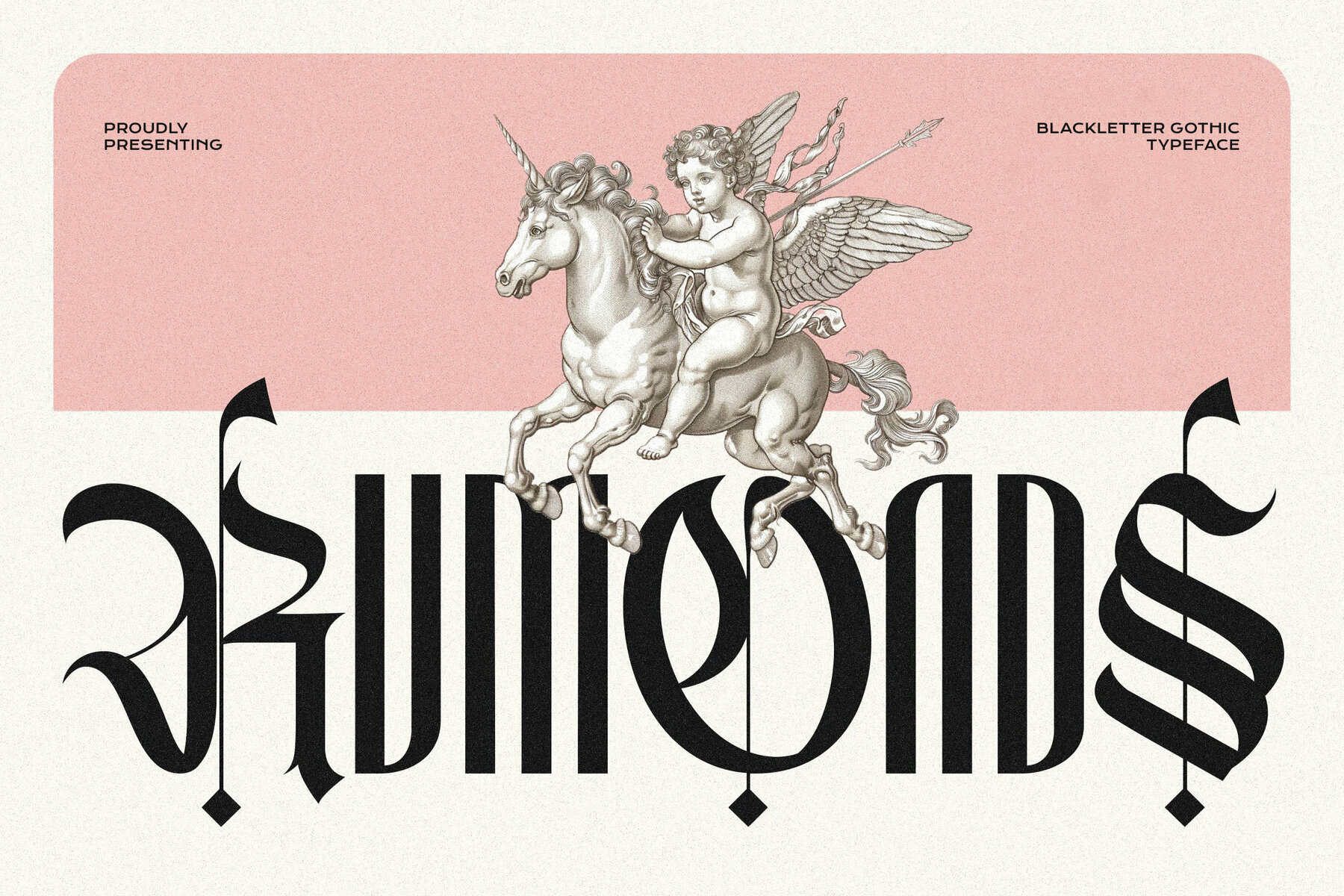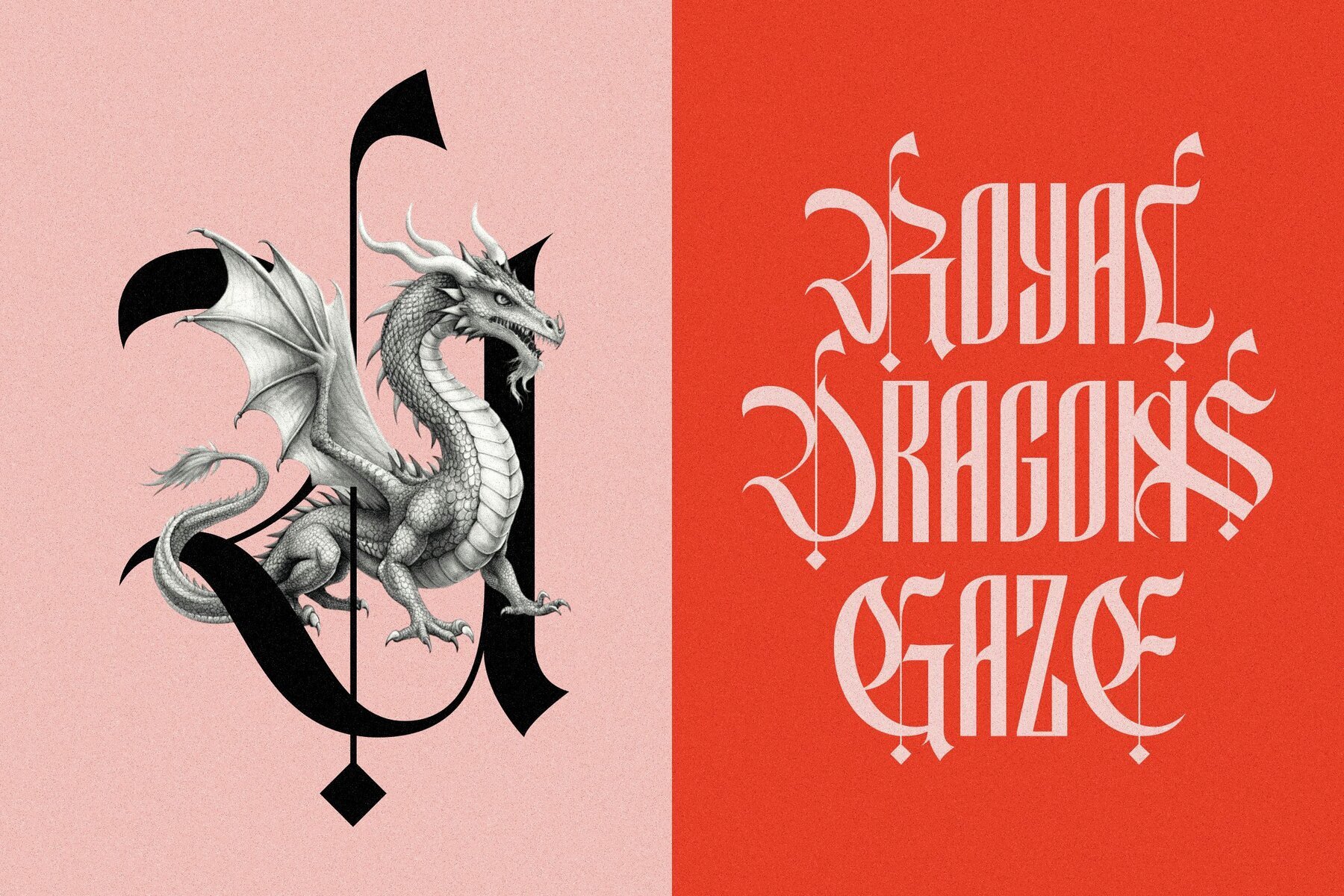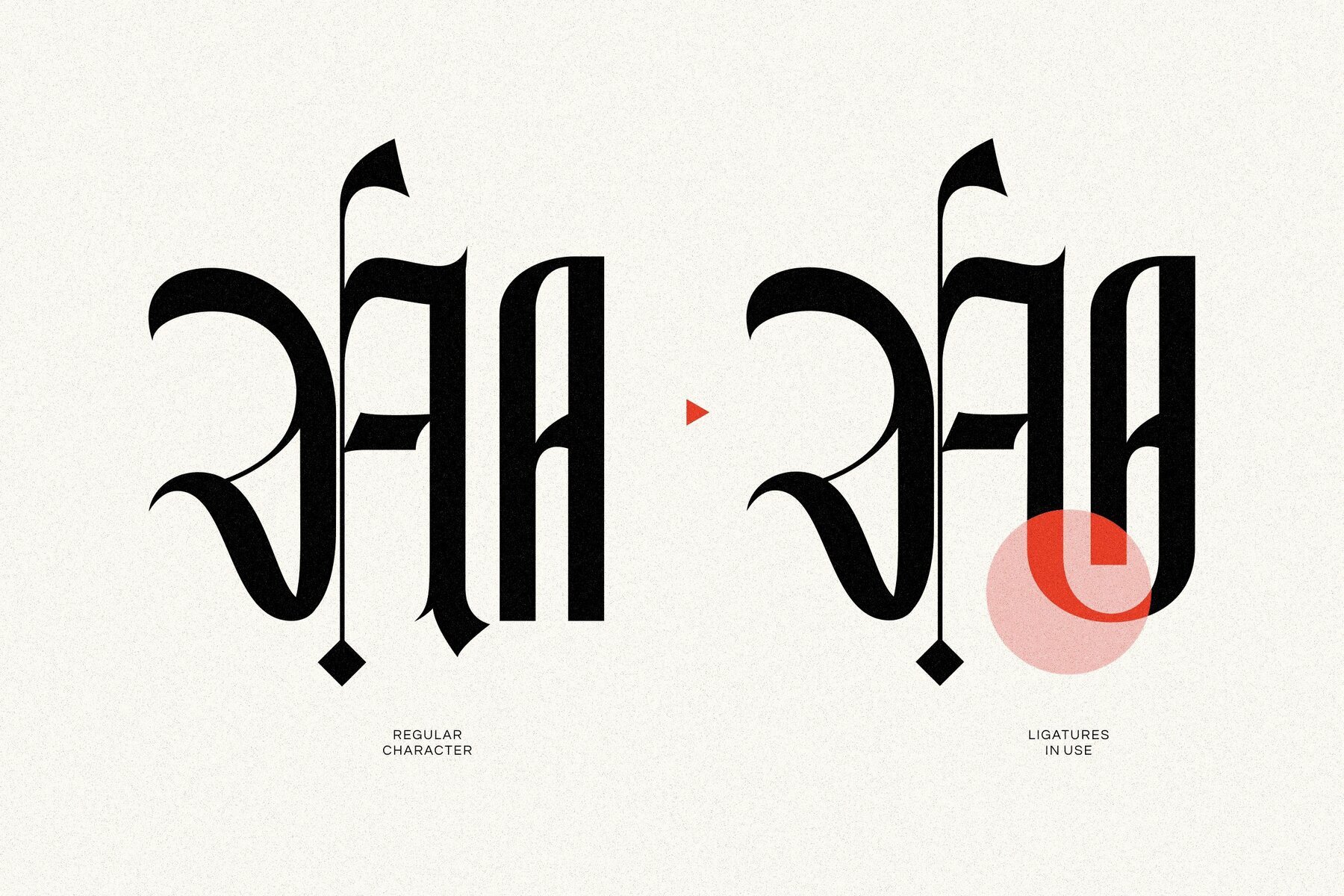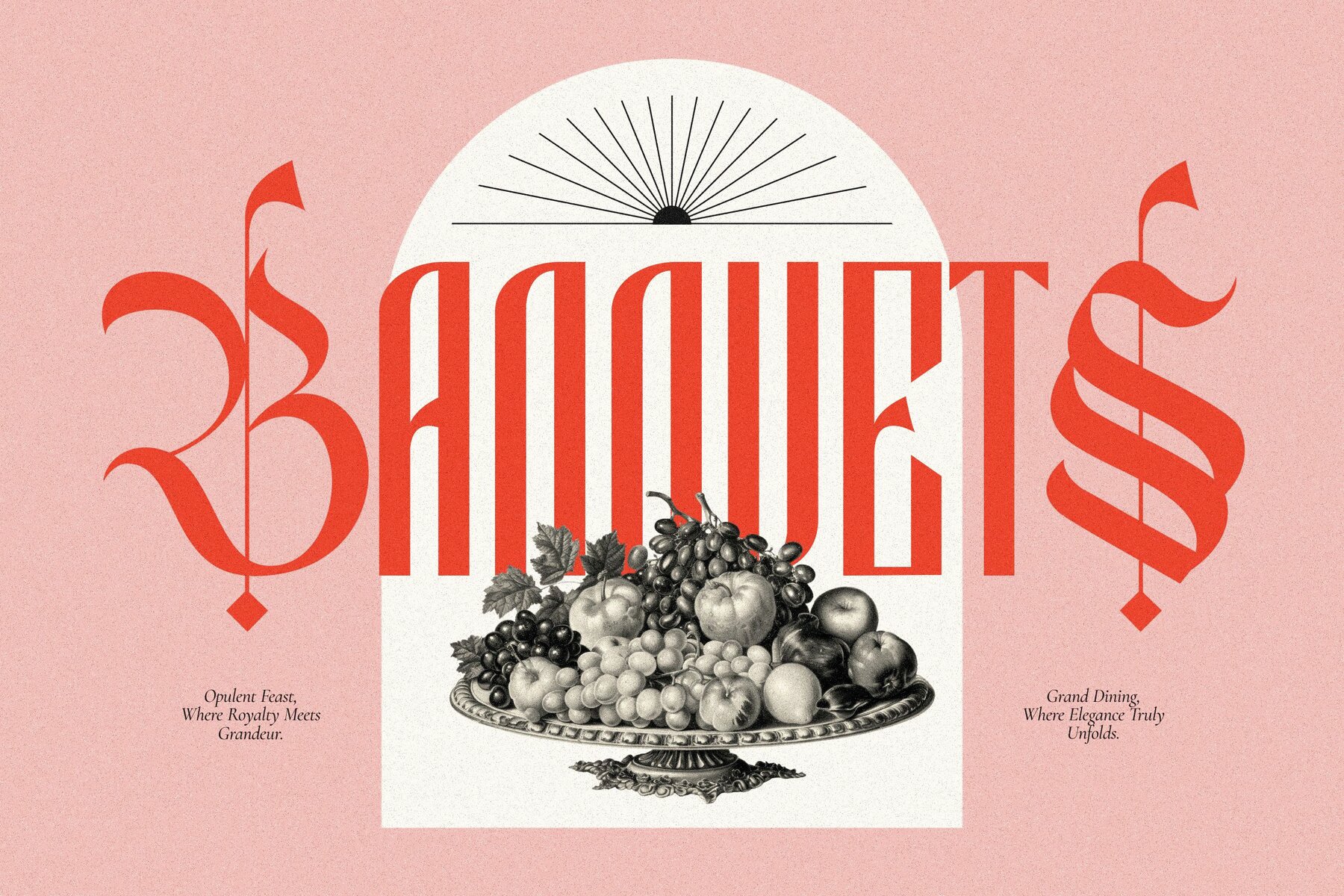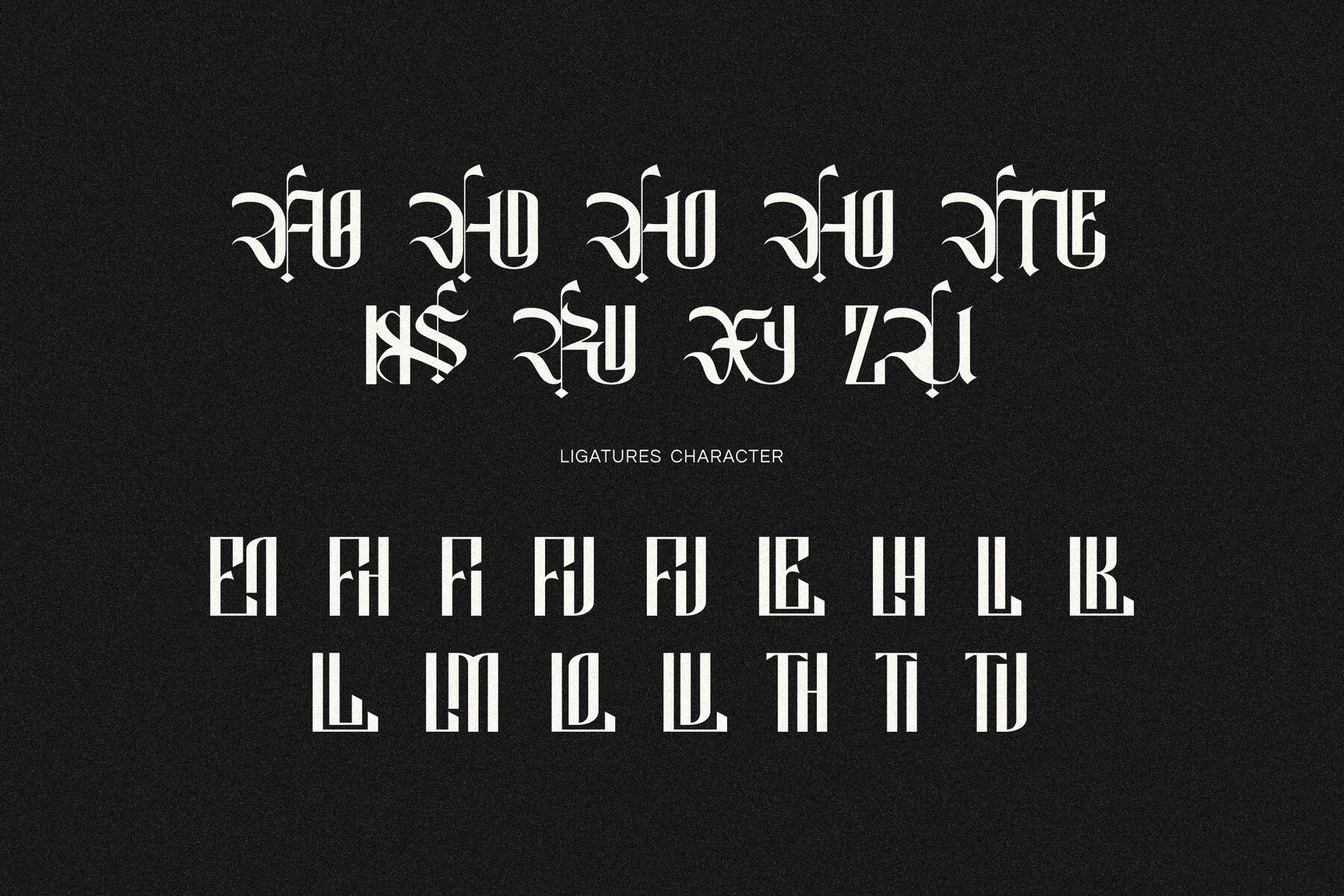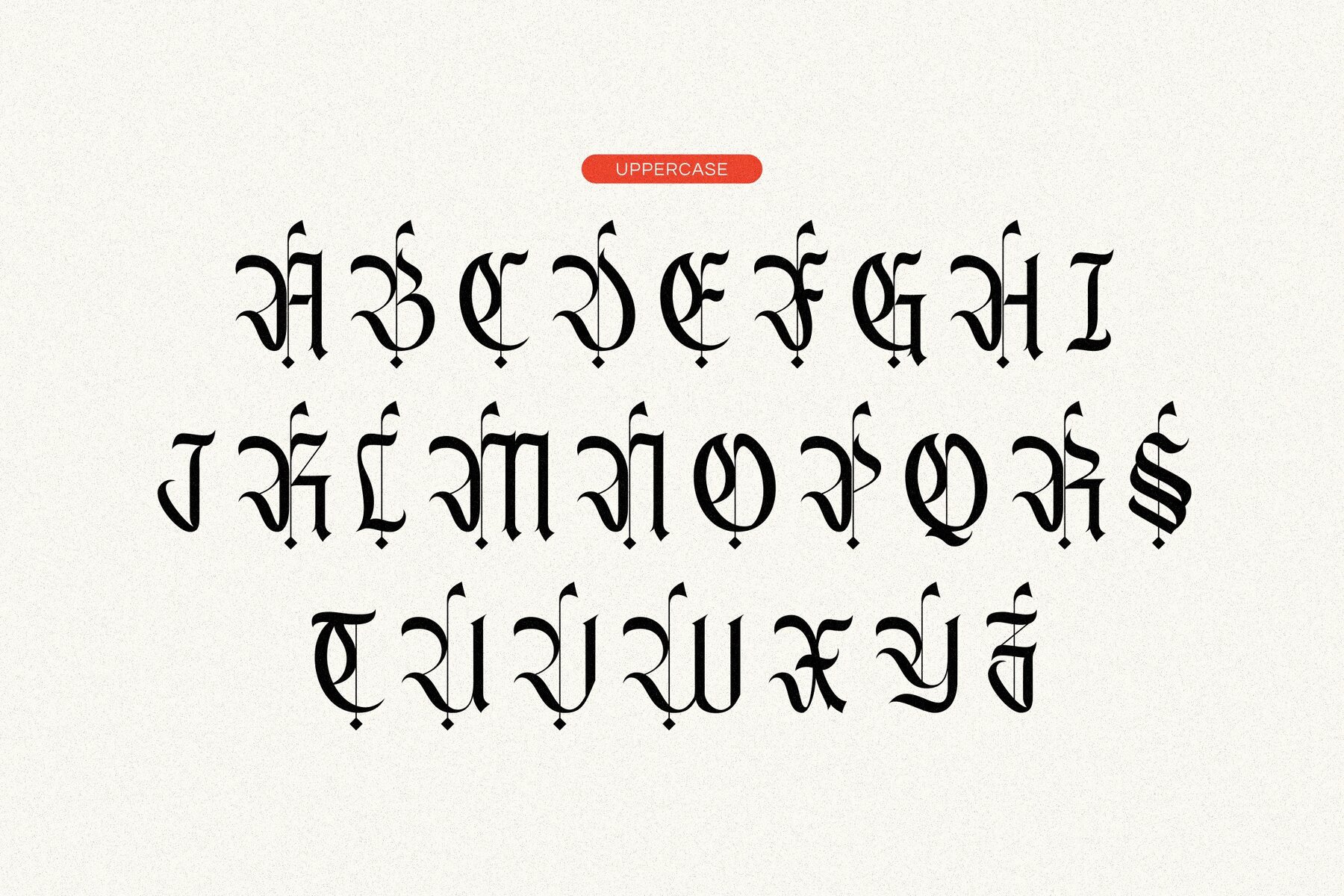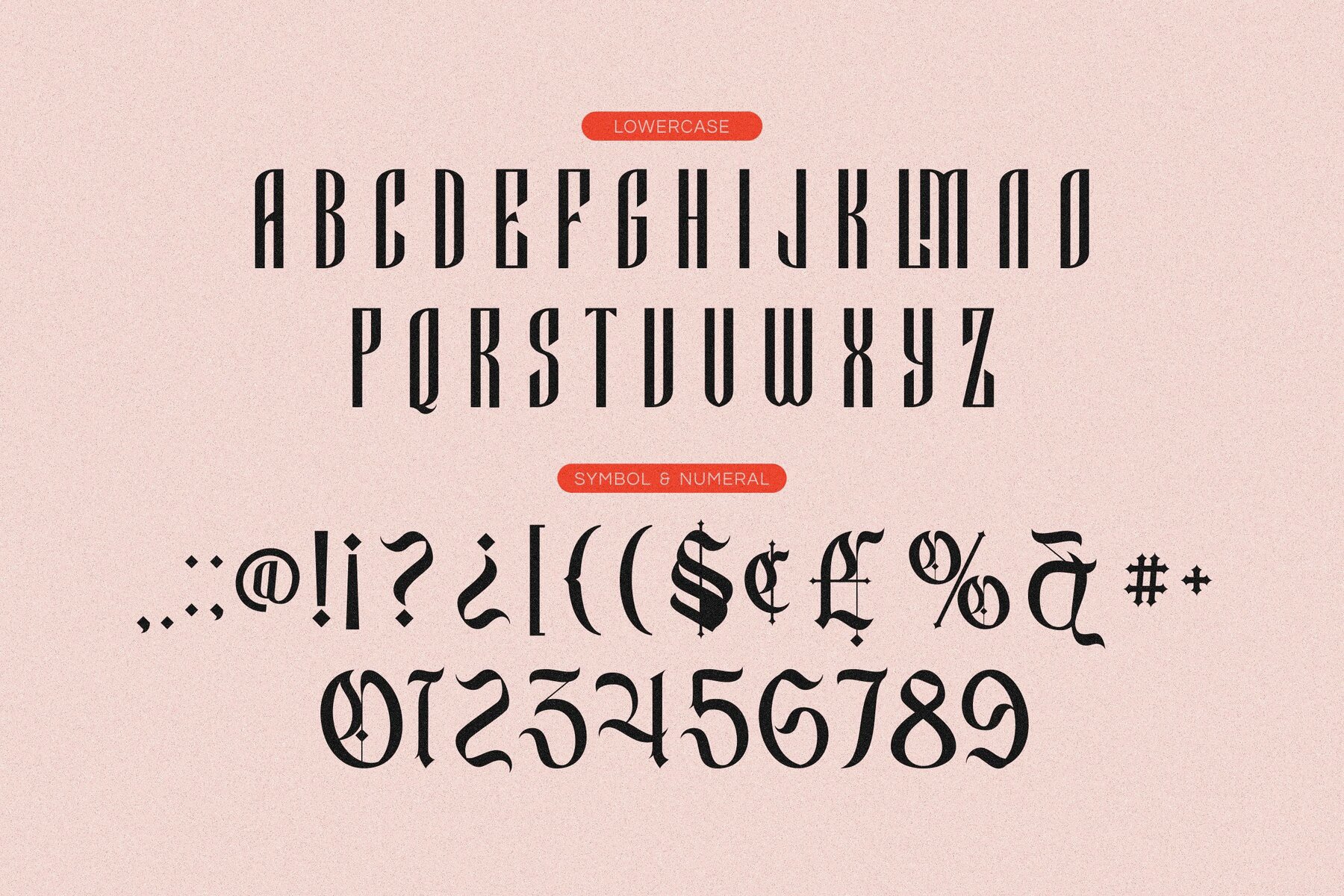
Rumonds Font
Rumonds Regular
Rumonds effortlessly merges historical grandeur with a sleek modern touch, offering a refined blackletter gothic typeface that captivates with dual aesthetic contrasts.Rumonds: A Gothic Typeface with Dual Personalities
Notable Characteristics
Rumonds stands as a versatile choice for projects delving into historical, fantasy, or luxurious branding themes, where every letter tells a story of timeless elegance and modern finesse. Its medieval essence and contemporary appeal make it a compelling asset in any design arsenal.